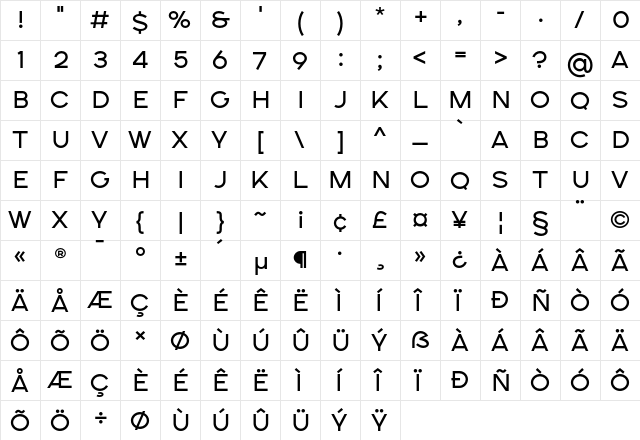
SONGER SemiExpanded Regular
| Foundry | Alexander Pravdin |
| Designer | Alexander Pravdin |
Design Context for SONGER SemiExpanded Typeface
SONGER SemiExpanded is a composed and adaptable typeface that performs quietly and consistently across a wide range of design contexts.